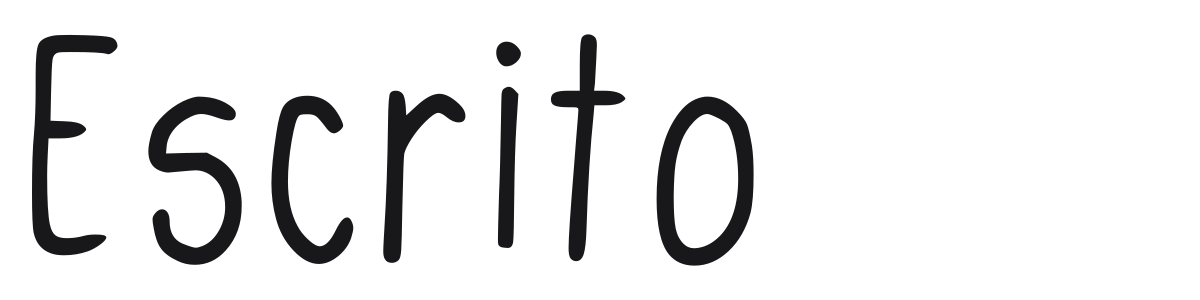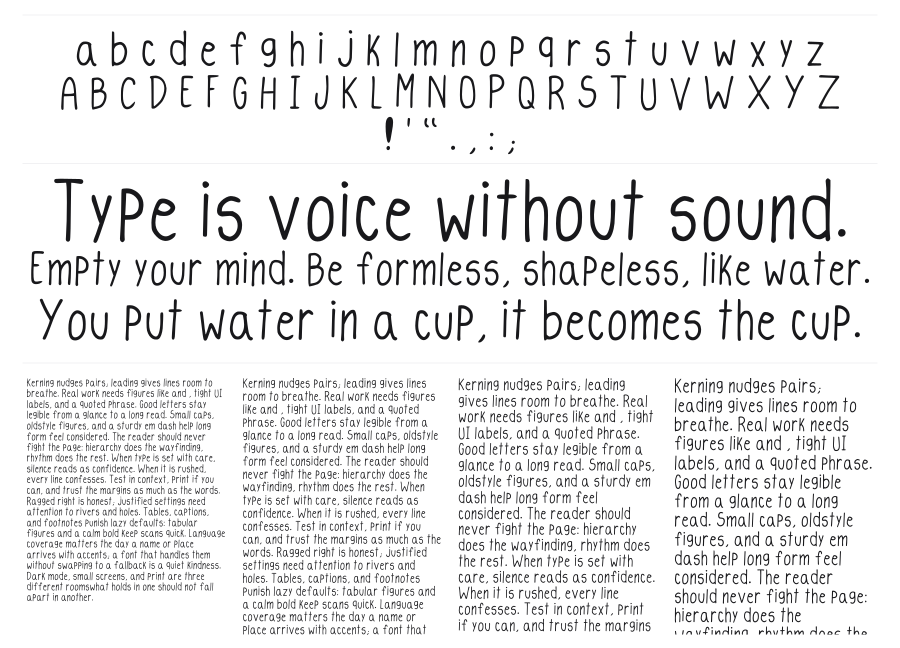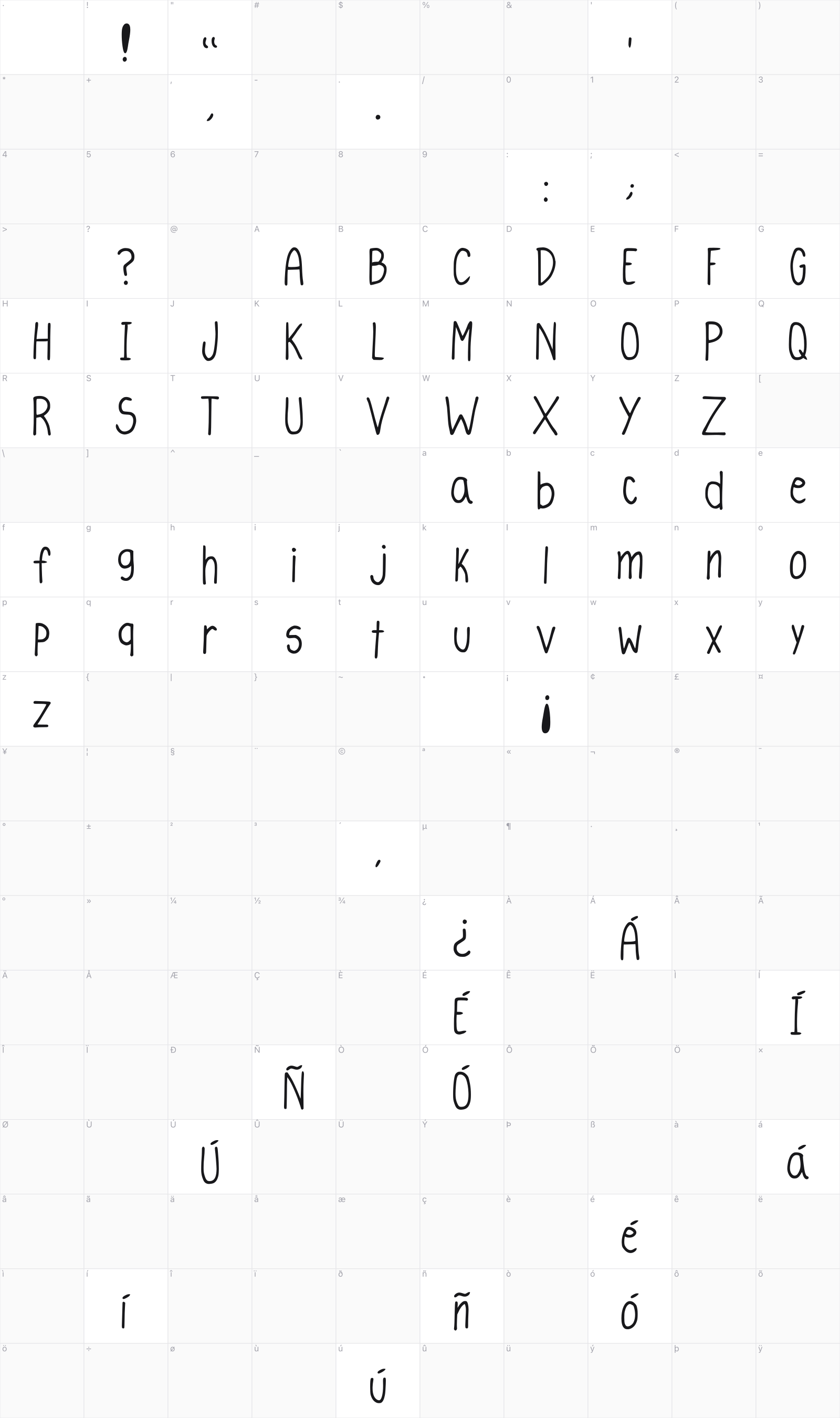
Escrito
by Geraldine Romero
Escrito is a casual upright handwritten font that feels like thoughtful everyday handwriting. The soft rounded terminals and subtle stroke irregularities keep it warm without becoming childish. It works well anywhere a human touch is needed without resorting to full cursive.